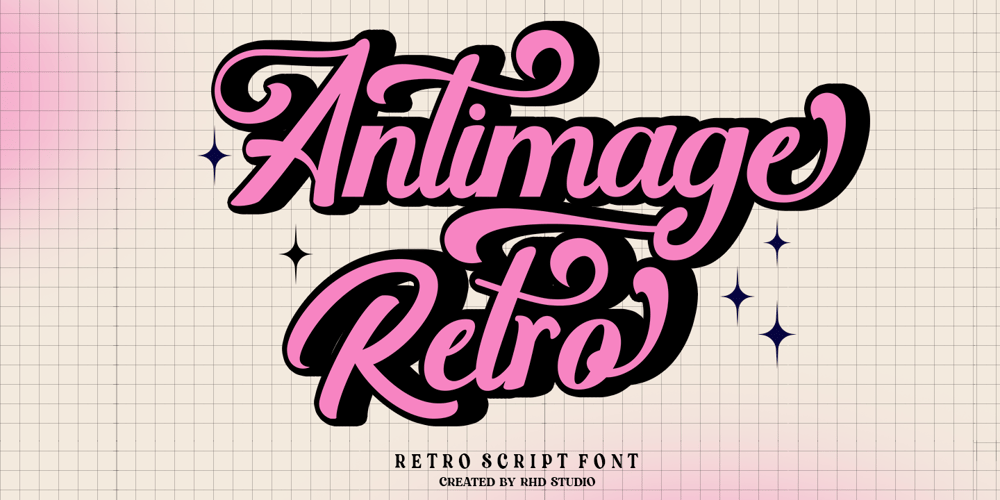
Antimage Retro Font Family was designed by Rahmad Rizky and published by Rhd Studio. Antimage Retro contains 1 styles and family package options. Introducing Antimage Retro, a charming and versatile Bold Retro Script Font that easily takes your designs back in time while adding a modern twist. This typeface exudes nostalgia and is perfect for a variety of creative projects, especially those with a vintage theme. Antimage Retro’s timeless elegance and lots of alternative character make it a great choice for designers who want to infuse their work with a sense of the charm of the past.FeatureA set of lowercase glyphsNumbers, symbols and punctuationMultilingual SupportAlternatives & Ligatures